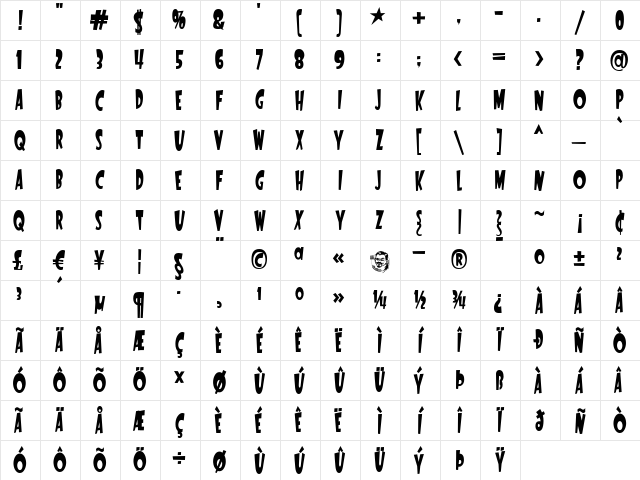
StartlingFont Regular
StartlingFont Family
Design Context for StartlingFont
StartlingFont is a composed and adaptable typeface that performs quietly and consistently across a wide range of design contexts.